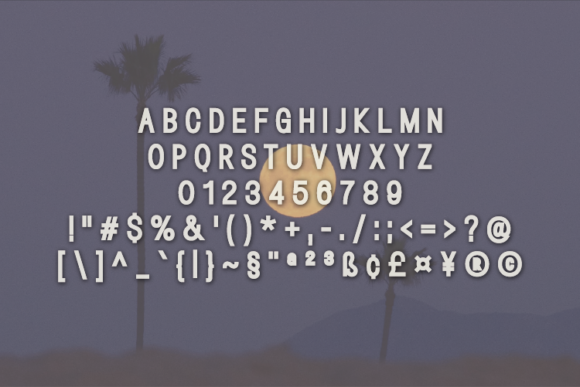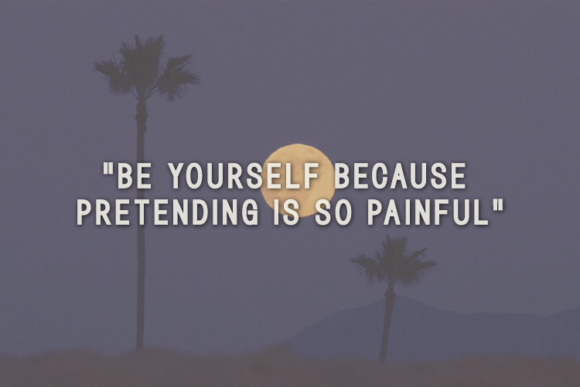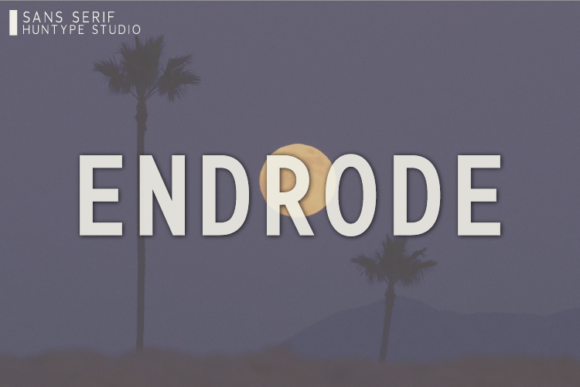
Introducing Endrode Font: The Ultimate Sans Serif for Creative Projects
Are you tired of using the same old fonts for your design projects? Look no further! Endrode Font is here to revolutionize the way you approach typography. This minimal and neat sans serif font is perfect for designers and crafters who want to add a touch of elegance and sophistication to their work.
What is Endrode Font?
Endrode Font is a modern sans serif font that boasts a clean and minimalist design. Its simplicity makes it incredibly versatile, allowing it to be paired with a wide range of projects, from branding and advertising to packaging and digital media. Whether you’re working on a personal project or a client’s, Endrode Font is sure to make your design stand out.
Key Features of Endrode Font
• Minimal and Neat Design: Endrode Font features a sleek and modern design that is both elegant and understated.
• Highly Versatile: Its simplicity makes it easy to pair with a wide range of projects and styles.
• Easy to Read: The font’s clear and concise design makes it easy to read, even at small sizes.
• Perfect for Digital Media: Endrode Font is optimized for digital use, making it perfect for websites, social media, and other online platforms.
How to Use Endrode Font in Your Design Projects
Endrode Font is incredibly easy to use and can be applied to a wide range of design projects. Here are a few ideas to get you started:
• Branding and Identity: Use Endrode Font to create a professional and cohesive brand identity.
• Advertising and Marketing: Add a touch of elegance to your advertising and marketing materials with Endrode Font.
• Packaging Design: Use Endrode Font to create eye-catching and modern packaging designs.
• Digital Media: Apply Endrode Font to your digital media projects, such as websites, social media graphics, and more.
Why Choose Endrode Font?
With so many fonts to choose from, why should you choose Endrode Font? Here are a few reasons:
• Unique and Modern Design: Endrode Font features a unique and modern design that will set your project apart from the rest.
• High-Quality Typography: The font is designed with high-quality typography in mind, ensuring that your project looks professional and polished.
• Easy to Use: Endrode Font is incredibly easy to use and can be applied to a wide range of design projects.
In conclusion, Endrode Font is a versatile and modern sans serif font that is perfect for designers and crafters who want to add a touch of elegance and sophistication to their work. Its minimal and neat design makes it easy to pair with a wide range of projects, and its high-quality typography ensures that your project looks professional and polished. So why wait? Download Endrode Font today and take your design projects to the next level!